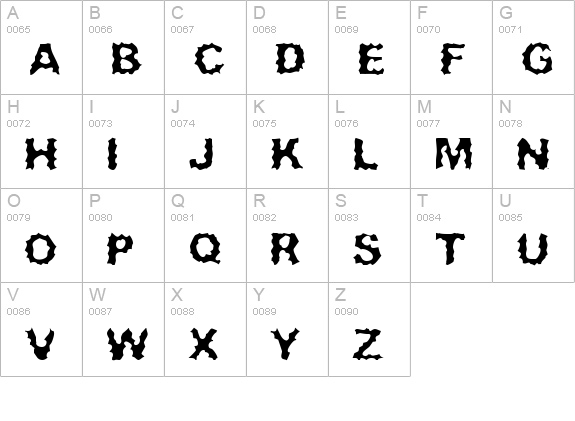
Surf Punx font is a vibrant and rebellious typeface that captures the essence of the surf and punk culture. With its bold strokes and edgy design, Surf Punx brings a sense of energy and attitude to any project. Whether you're creating posters, album covers, or branding materials, this font is sure to make a statement. What sets Surf Punx apart is its unique combination of surf-inspired elements and punk aesthetics, resulting in a font that is both dynamic and eye-catching. The letters are designed to evoke a sense of movement and freedom, perfect for projects that demand a sense of adventure and excitement. And the best part? Surf Punx font is completely free to download at FontsMarket.com. So whether you're a designer looking to add a touch of rebelliousness to your work or simply a fan of surf and punk culture, make sure to grab this font and let your creativity run wild.